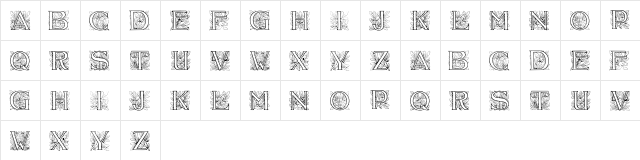
Acorn Initials Regular
Design Context for Acorn Initials Typeface
Acorn Initials is a composed and adaptable typeface that performs quietly and consistently across a wide range of design contexts.